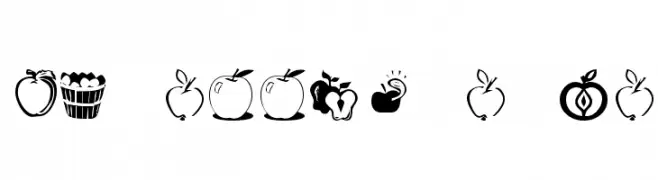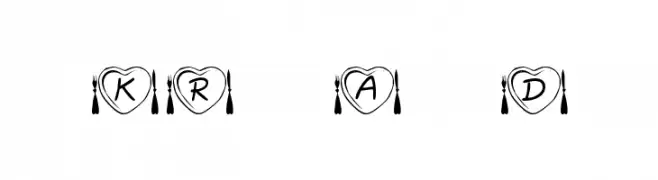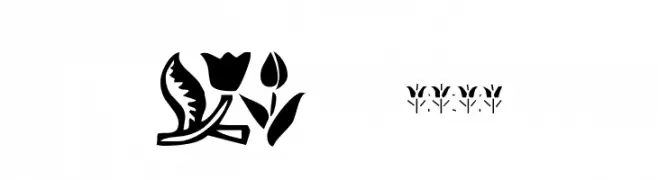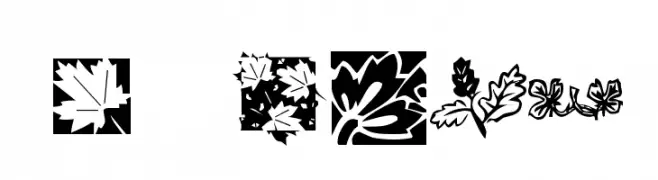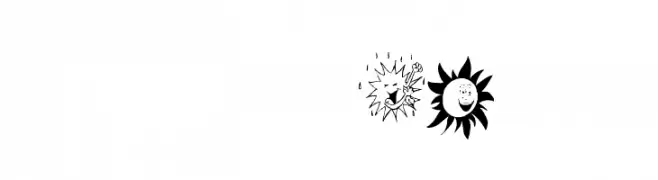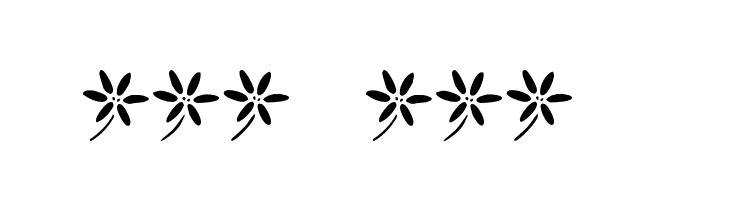
A whimsical collection of cartoon-style characters with playful expressions.
A decorative floral dingbat set with varied flower and plant motifs.
A decorative font featuring detailed birdhouse illustrations.
A playful collection of apple-themed icons in black and white.
A whimsical font with cartoon-style animal illustrations.
A decorative font with letters inside heart shapes, accented by cutlery.
A decorative font with diverse butterfly illustrations.
A decorative collection of tulip-themed icons and symbols.
A decorative collection of leaf-themed symbols and icons.
A playful collection of sun-themed dingbats with expressive and whimsical designs.